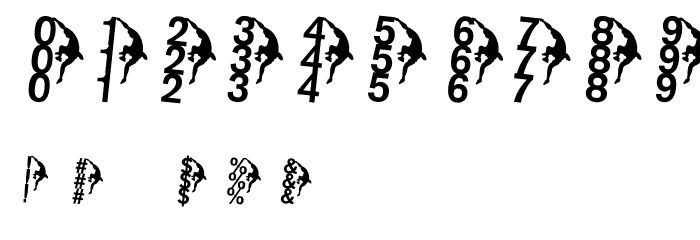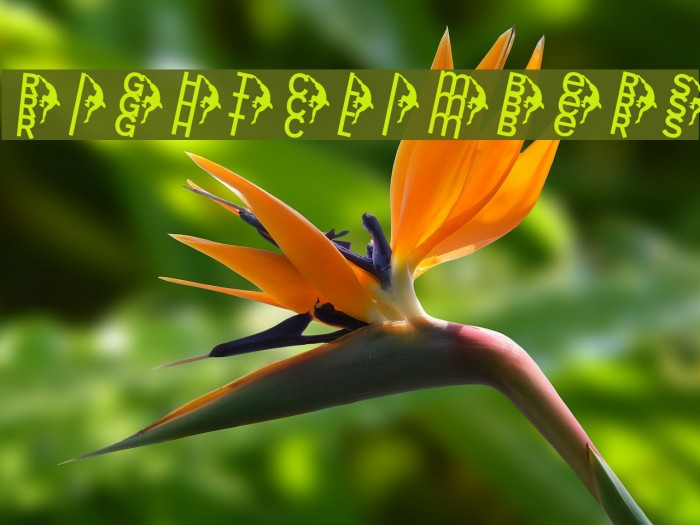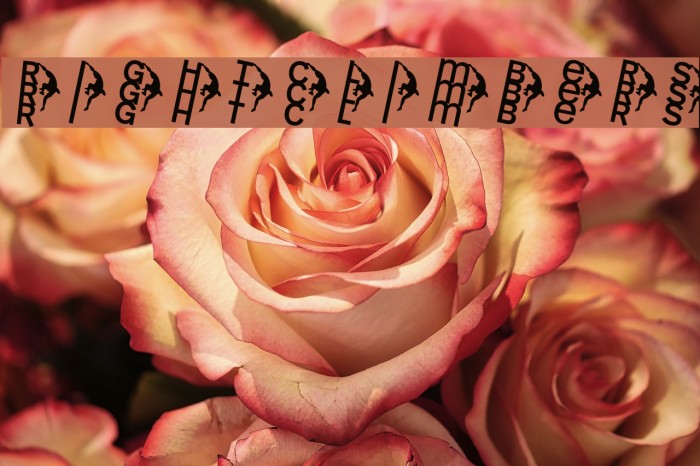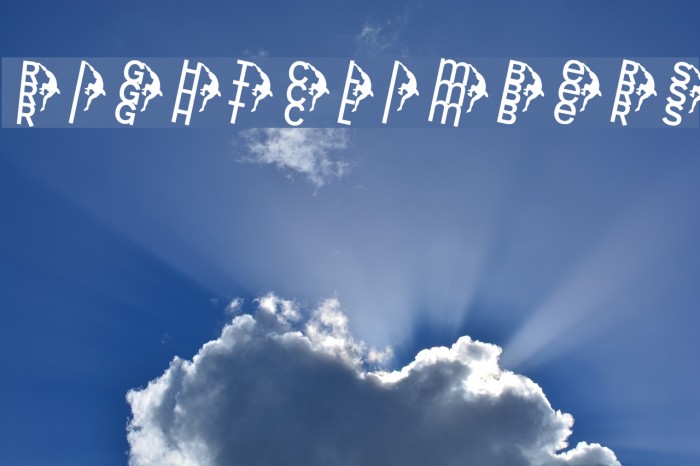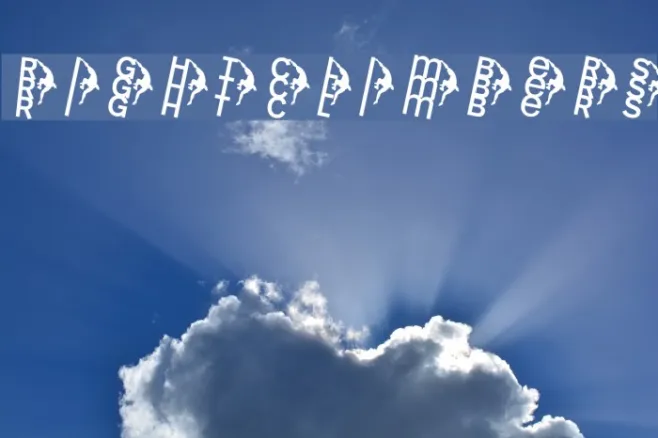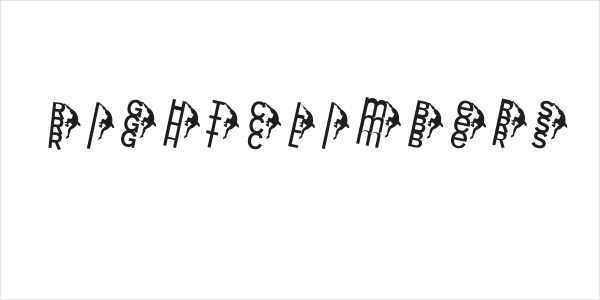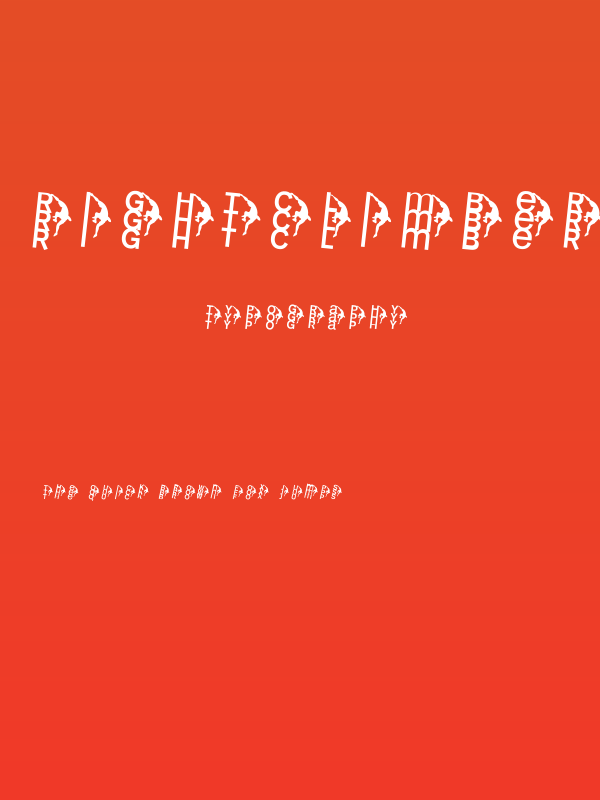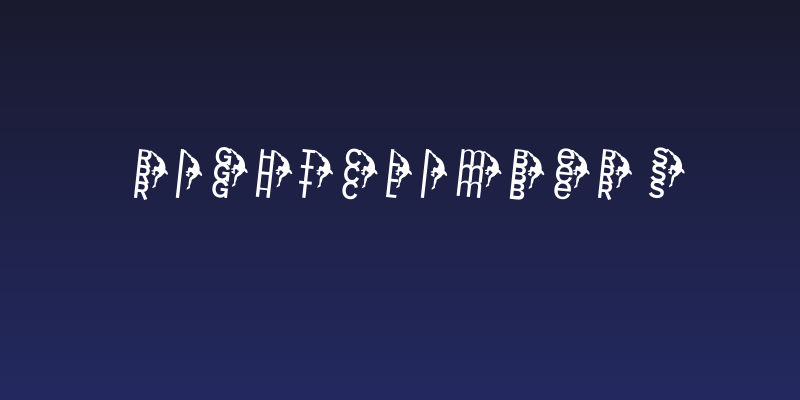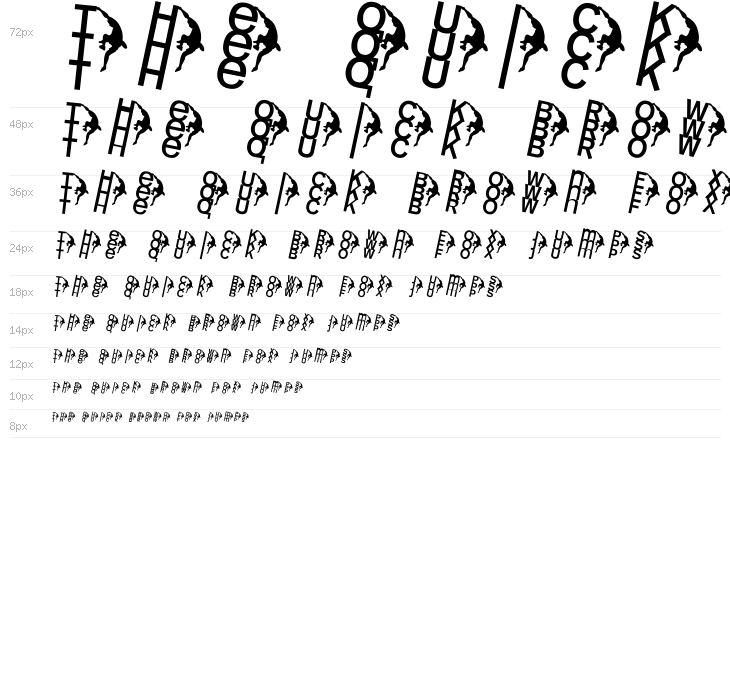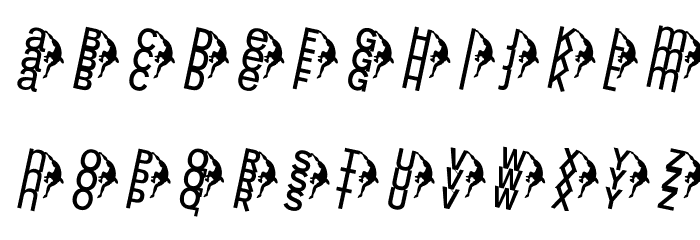
RightClimbers Font
RightClimbers Description
This unique and adventurous font features a climber integrated into each character, creating a dynamic and energetic visual effect. The letters are bold and slightly slanted, giving a sense of movement and excitement. The climber motif adds a playful and thematic element, making it ideal for projects related to outdoor activities, sports, or adventure. The font maintains readability while incorporating this creative design, making it both functional and decorative.